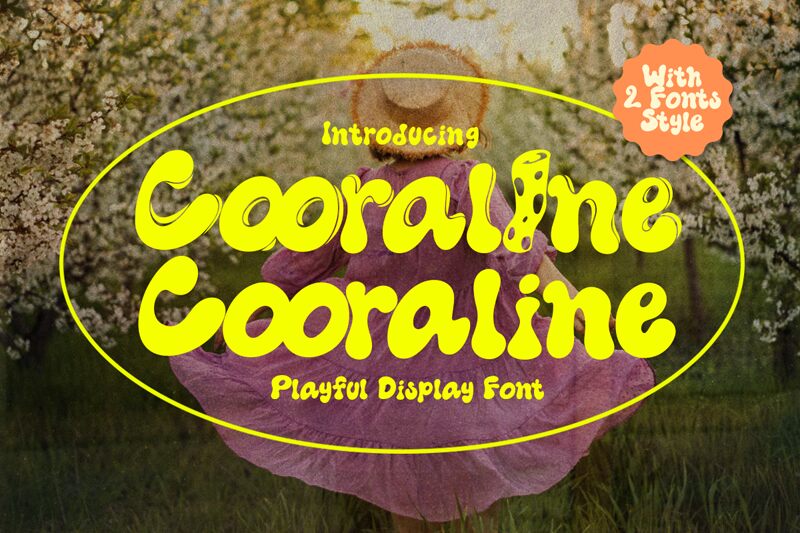
Cooraline emerges as a bold display font that captures the essence of the groovy era with a modern twist. Crafted by Scratch Design, this typeface exudes an aesthetic appeal that is both retro and refreshing. Its curvaceous lines and smooth flow give it a playful yet assertive personality, perfect for designs that aim to stand out.
The robust weight of Cooraline ensures excellent legibility, making it not just a stylistic choice but also a practical one for various creative projects. From eye-catching headlines to vibrant posters, this font is poised to infuse your work with an unmistakable flair.
Its suitability extends across digital and print mediums-whether you're designing an album cover or branding for social media content, Cooraline offers versatility wrapped in an iconic style. Let Cooraline be the voice of your next project and watch your designs come alive with its dynamic character.
Cooraline